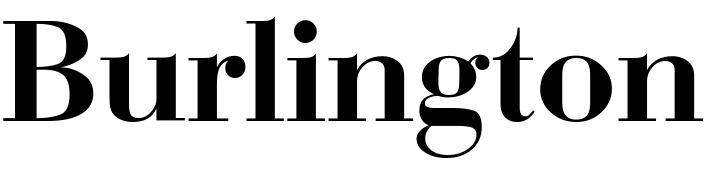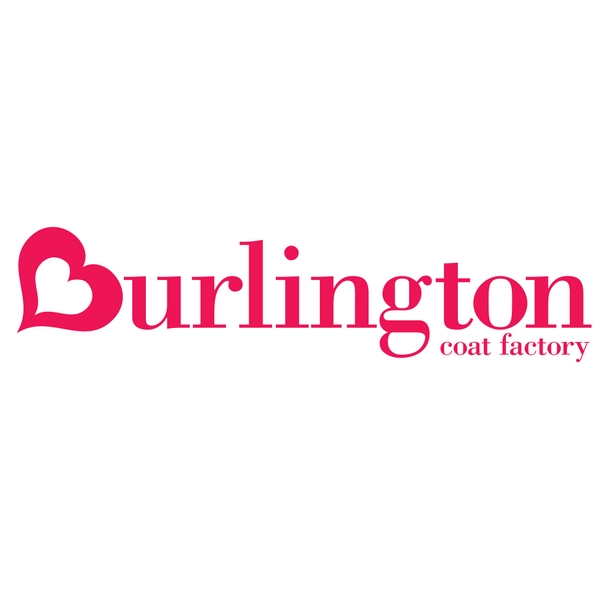
Burlington Coat Factory Font
Fonts in UseBurlington Coat Factory is an American off-price department store chain that sells clothing, shoes, accessories, and home goods. It was founded in 1972 by Monroe Milstein and is headquartered in Burlington, New Jersey.
Since 2011, the company has been using a logo that showcases the Bodoni typeface, recognized for its high contrast between thick and thin strokes, hairline serifs, and pure vertical stress. Prior to 2011, the company's logos were designed with the extra bold roman Cooper Black typeface, created by Oswald Bruce Cooper.